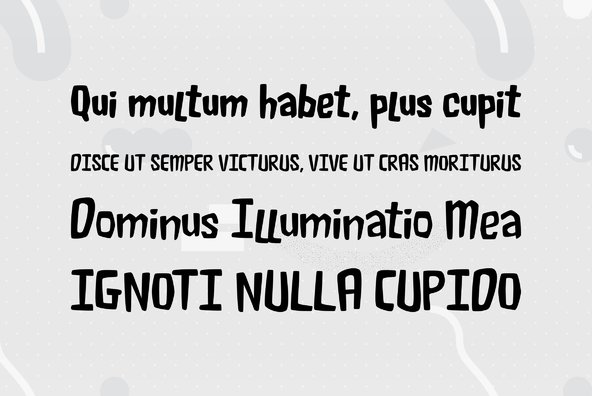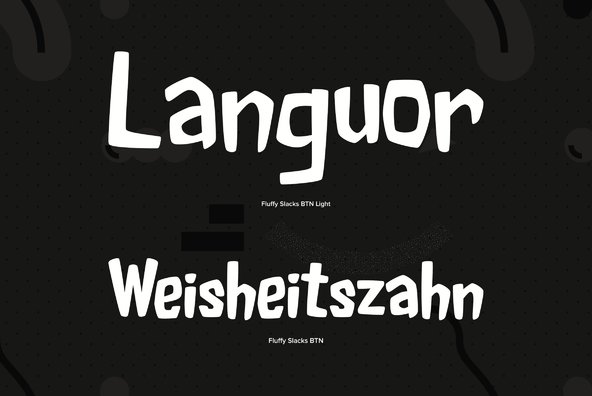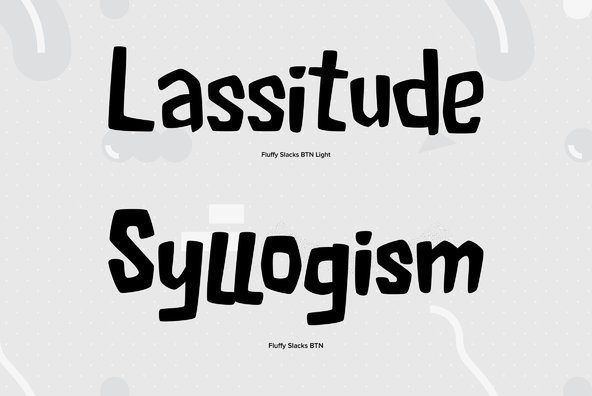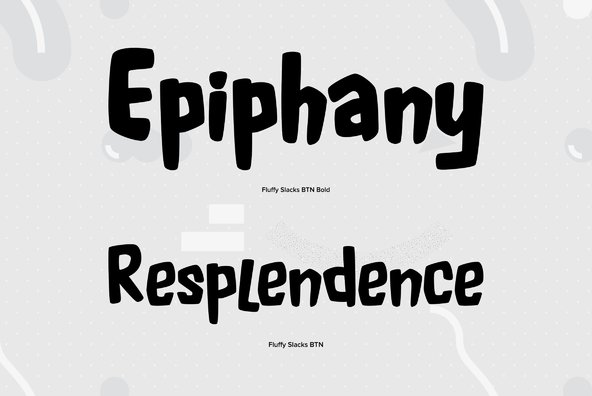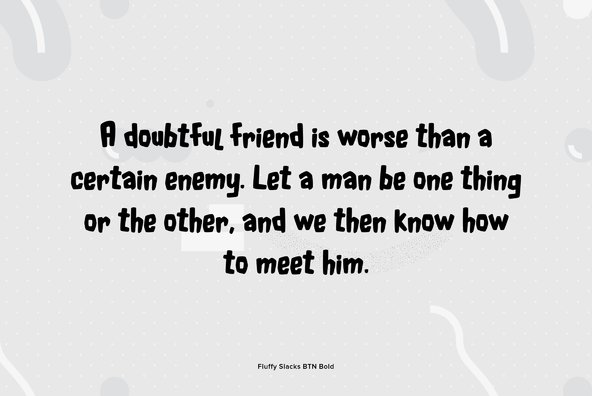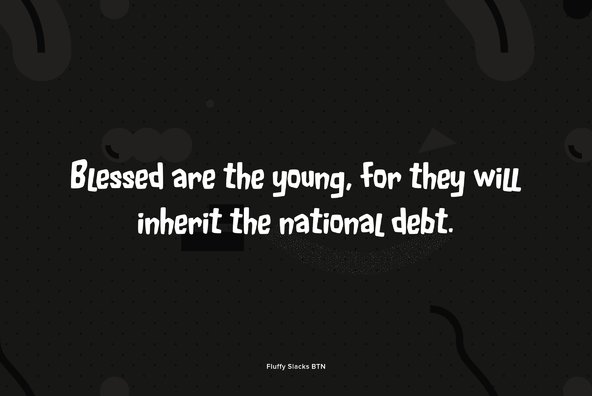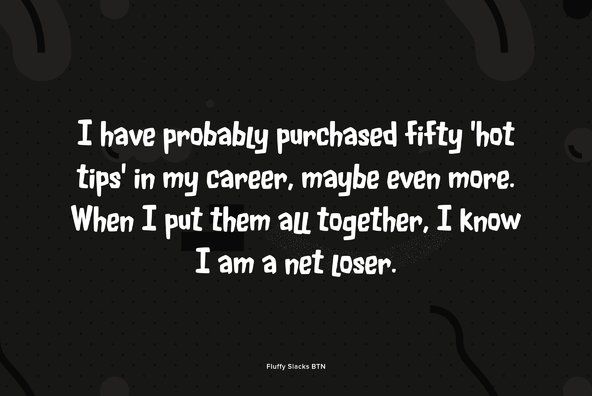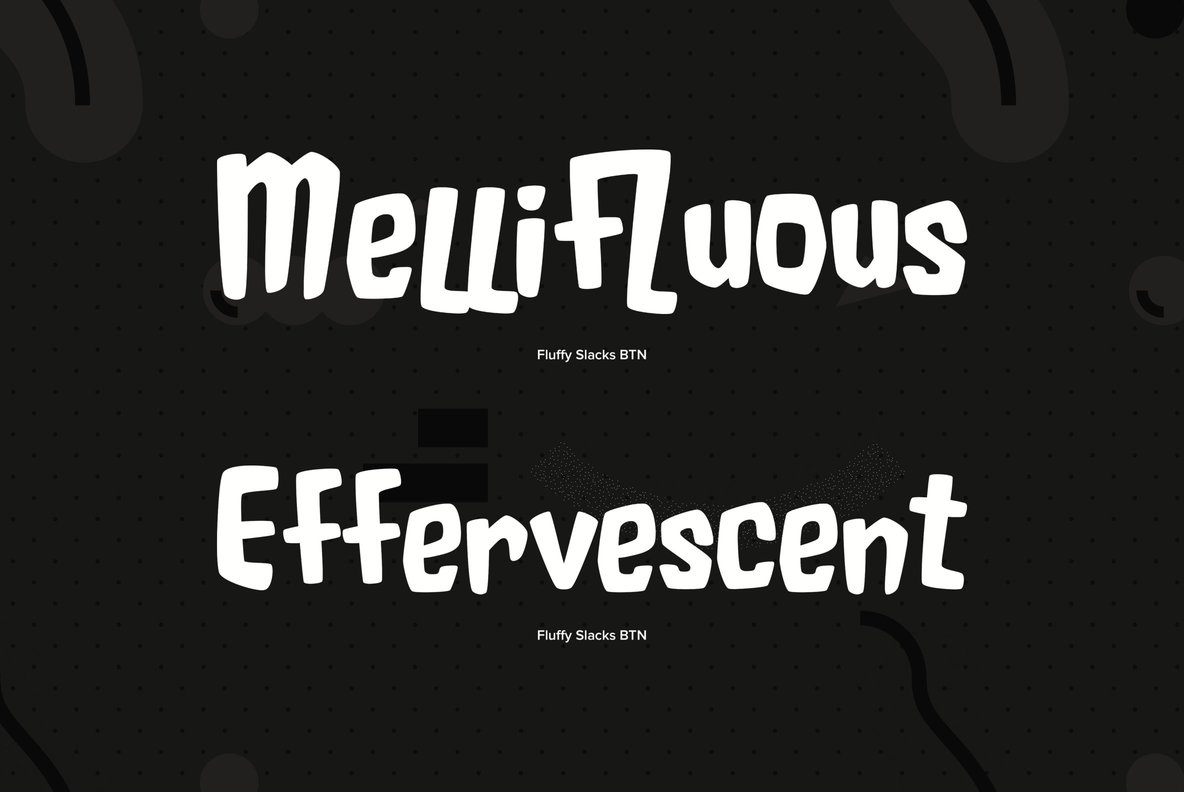
Fluffy Slacks
Foundry: Breaking The Norm
Fluffy Slacks is a casually dressed typeface perfect for informal signage, headlines and display applications.